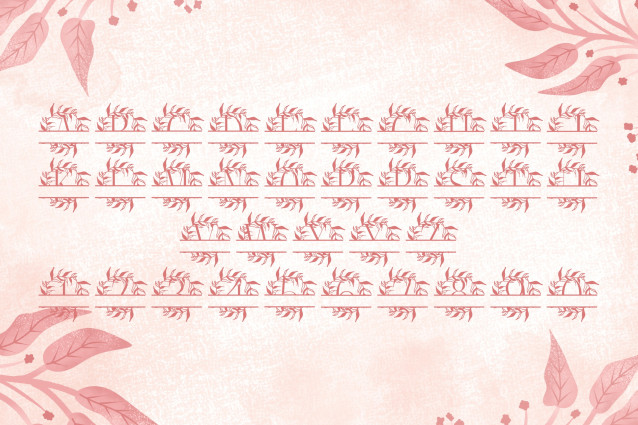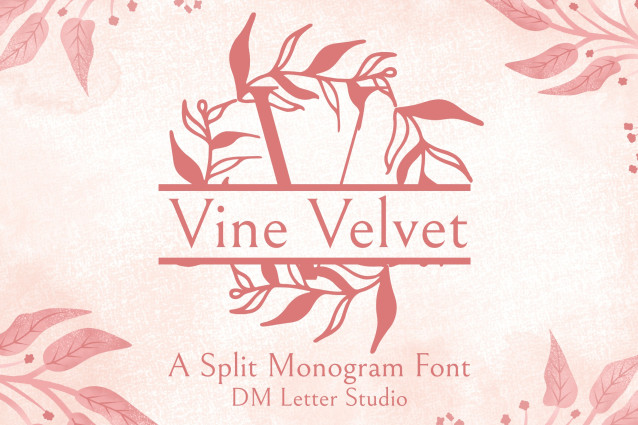
Vine Velvet Split Monogram Font
Vine Velvet Split Monogram Font is a refined serif font with a split-letter format, delicately enhanced by flowing vine and leaf illustrations. Each uppercase character is beautifully divided to allow for name or text customization while being wrapped in graceful botanical flourishes. Ideal for elegant weddings, nature-themed branding, and personalized Cricut projects.